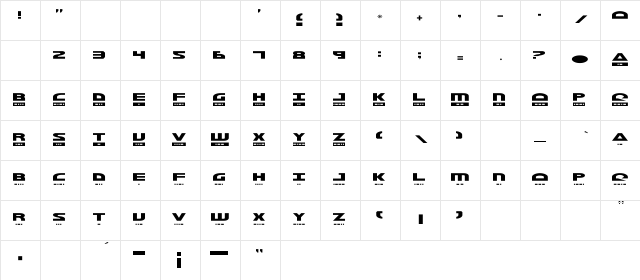
Morse Kode Regular Free Font
Morse Kode Regular
Morse Kode Family
Morse Kode Regular
Complete Morse Kode Regular glyph index. Displaying only characters natively supported by Morse Kode Regular font.
Design Context for Morse Kode
Morse Kode is a composed and adaptable typeface that performs quietly and consistently across a wide range of design contexts.